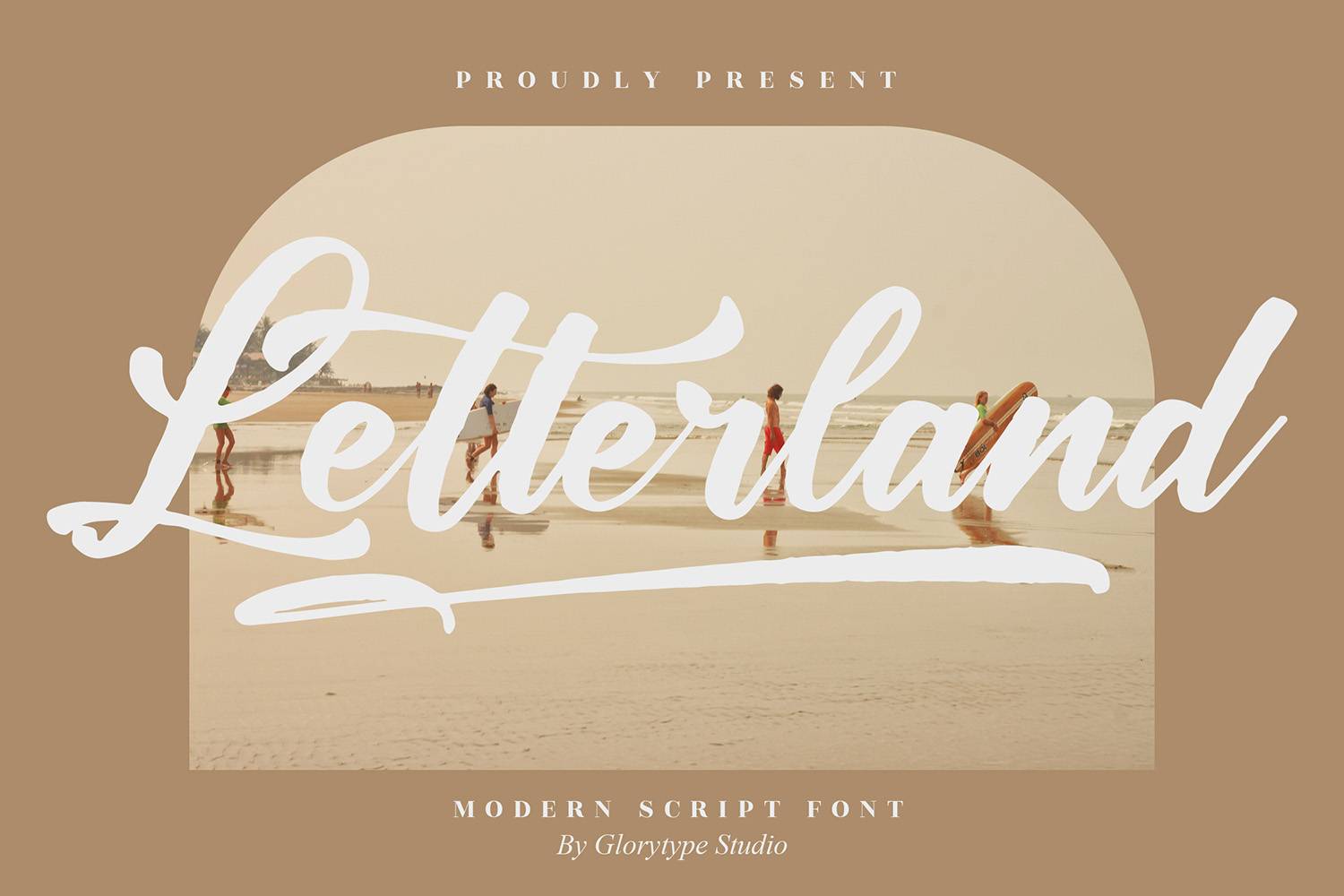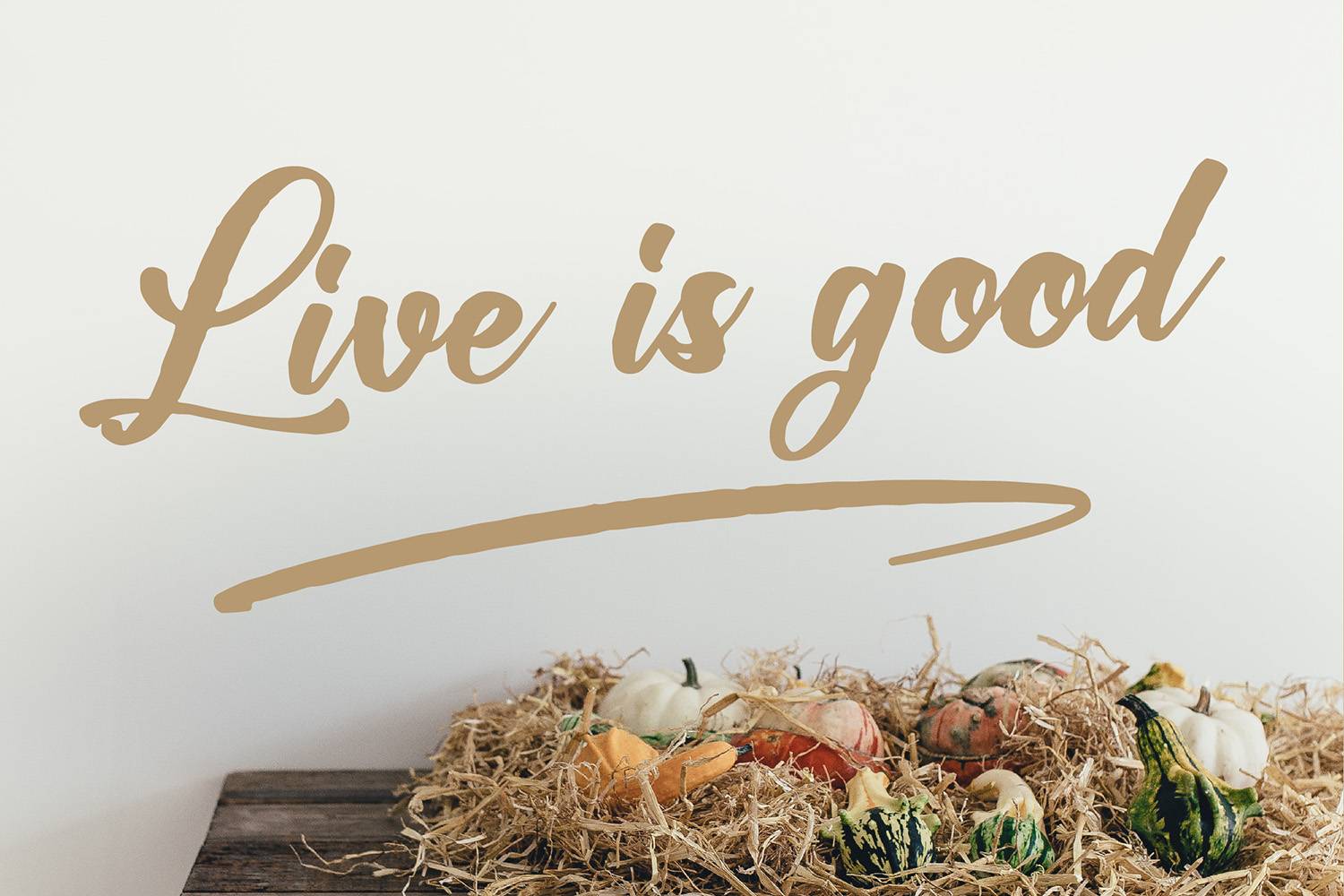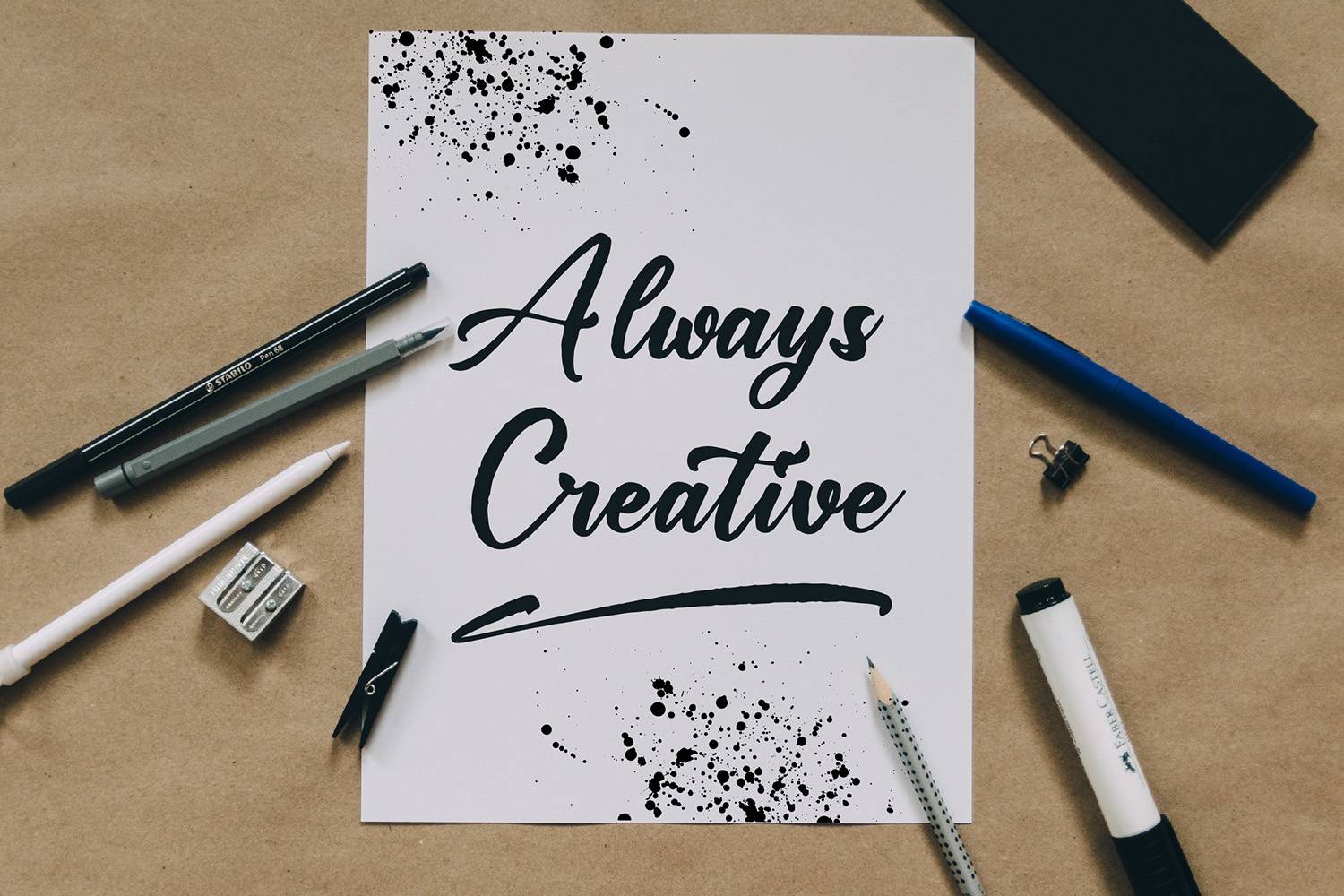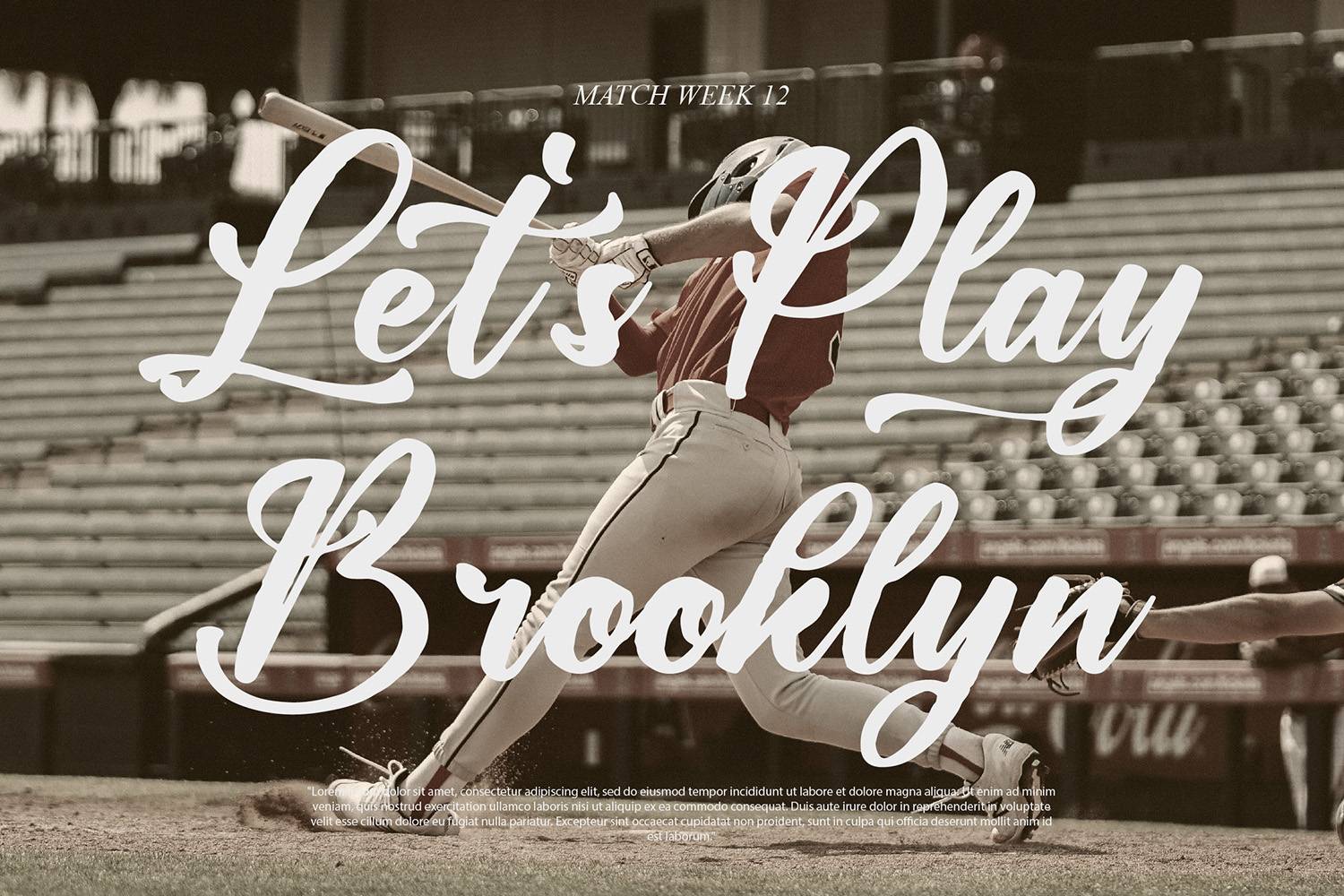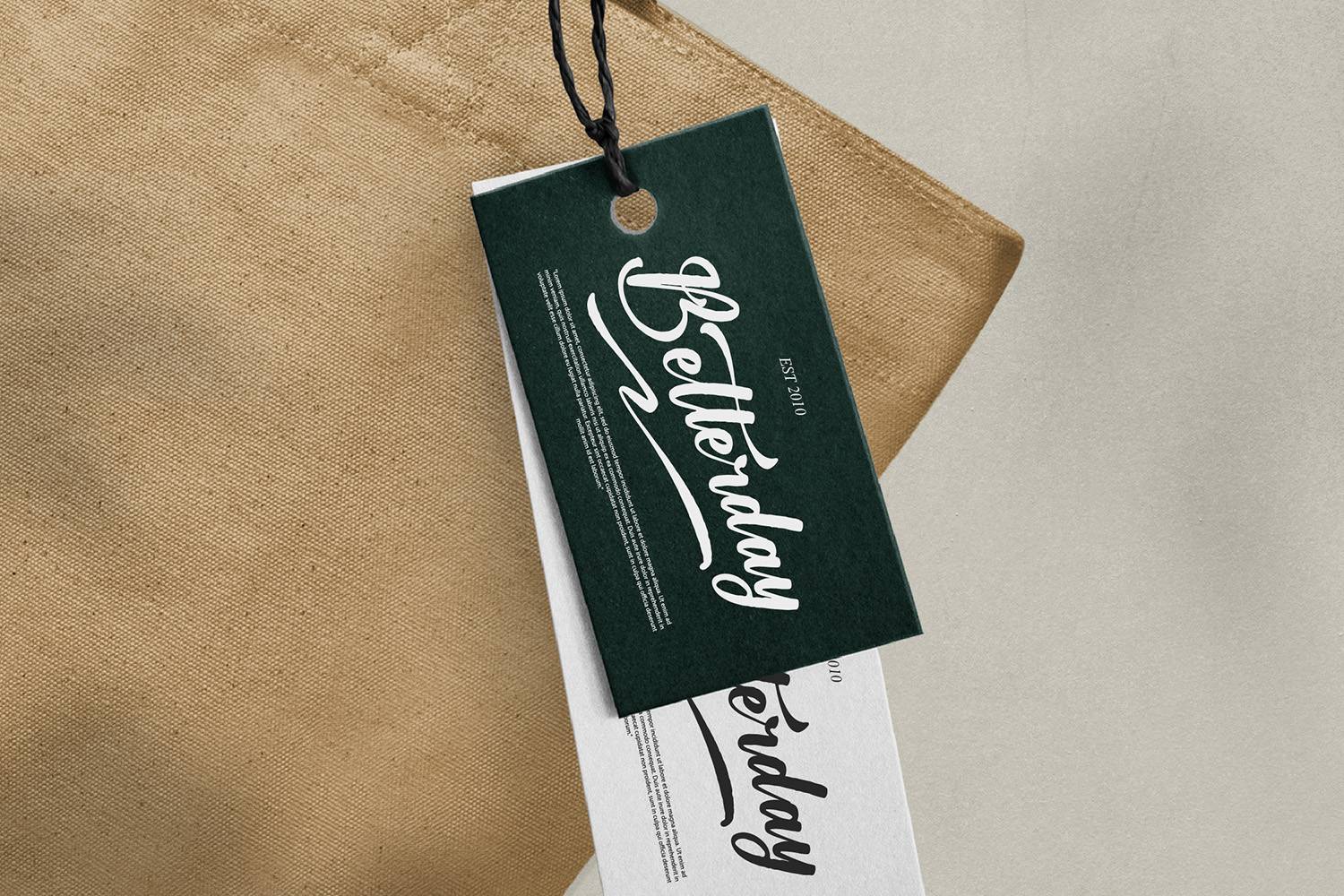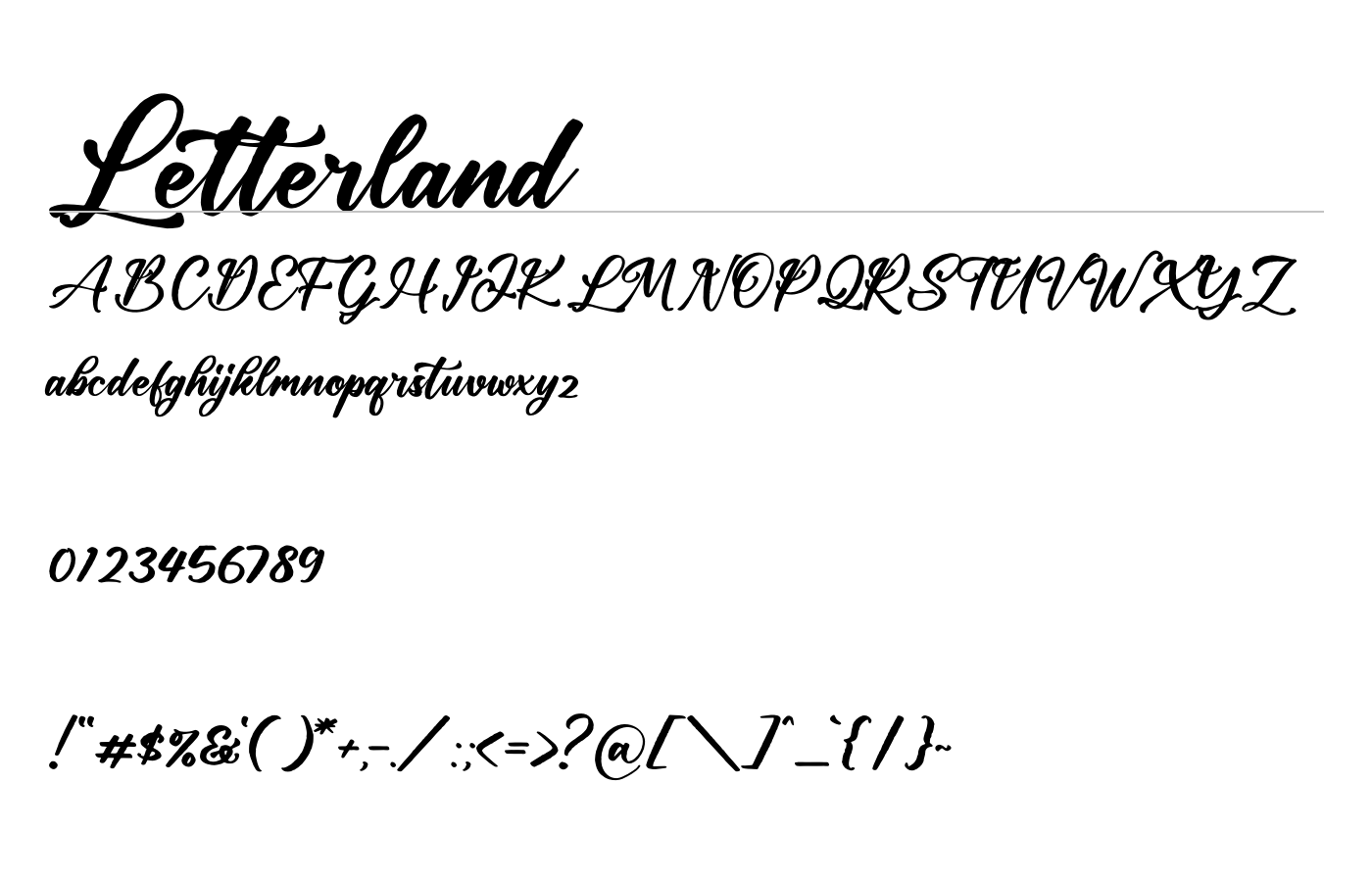
Letterland is an elegant script font with a smooth, flowing design that mimics natural handwriting. It features a medium weight and a moderate contrast between thick and thin strokes, giving it a graceful and stylish personality ideal for decorative uses. This font works beautifully for invitations, logos, and branding where a sophisticated yet approachable touch is desired.
Letterland Font
About Letterland Font